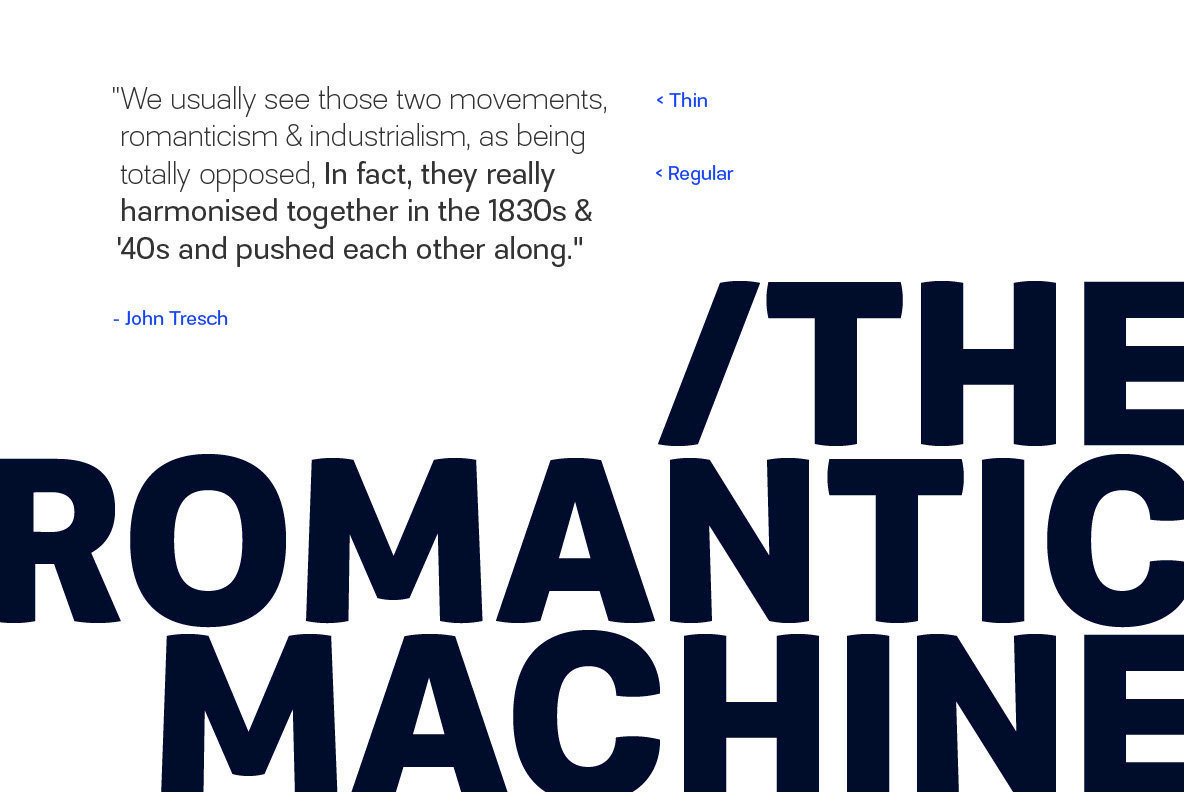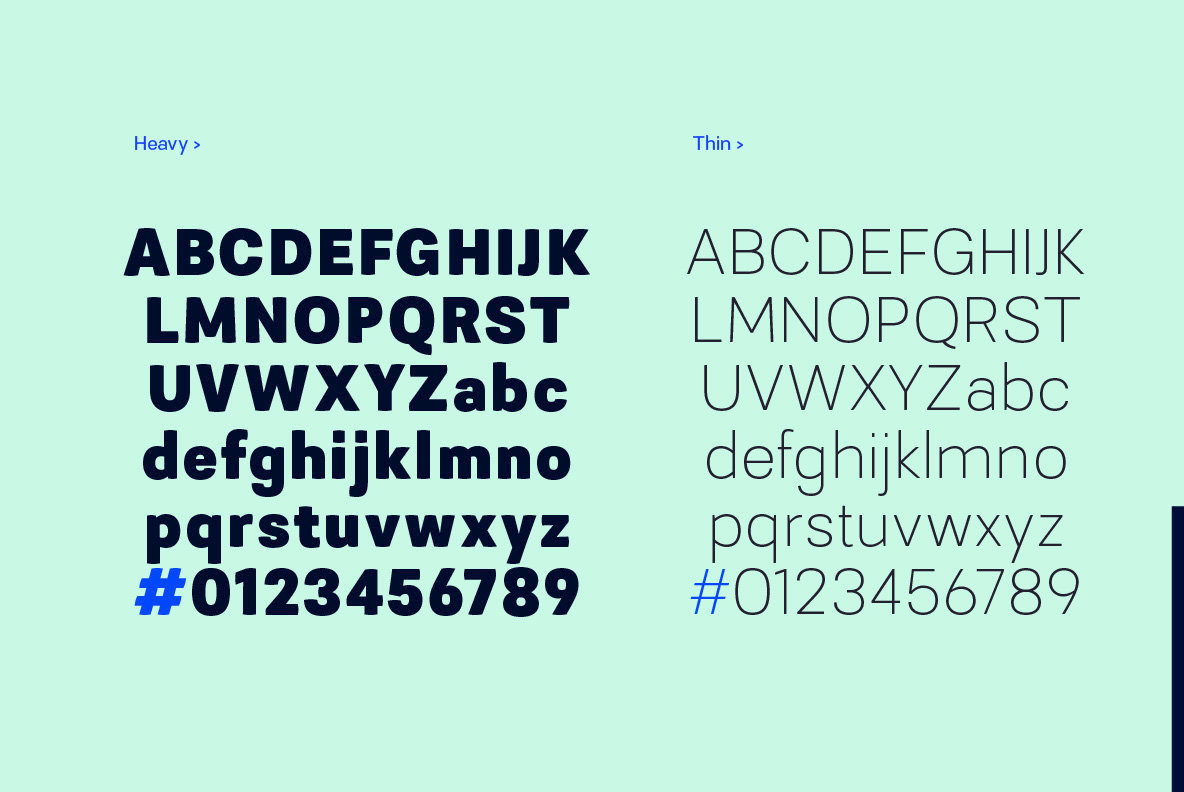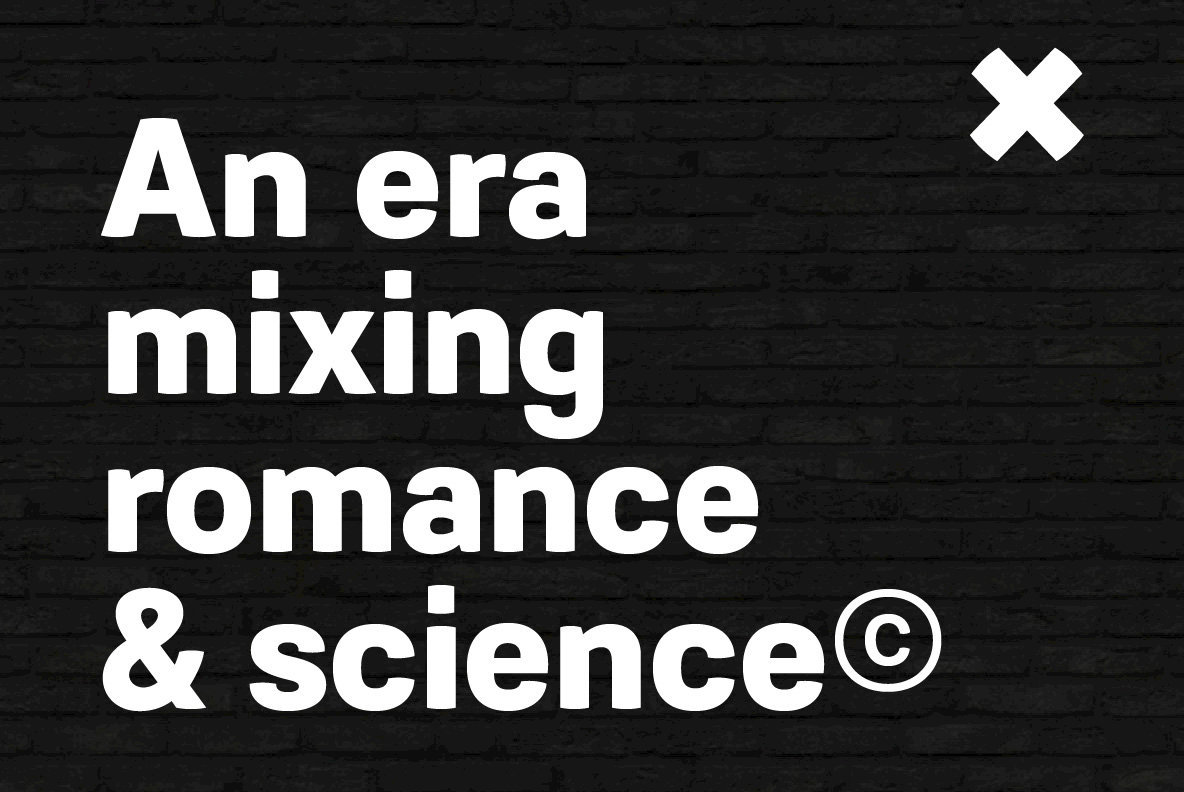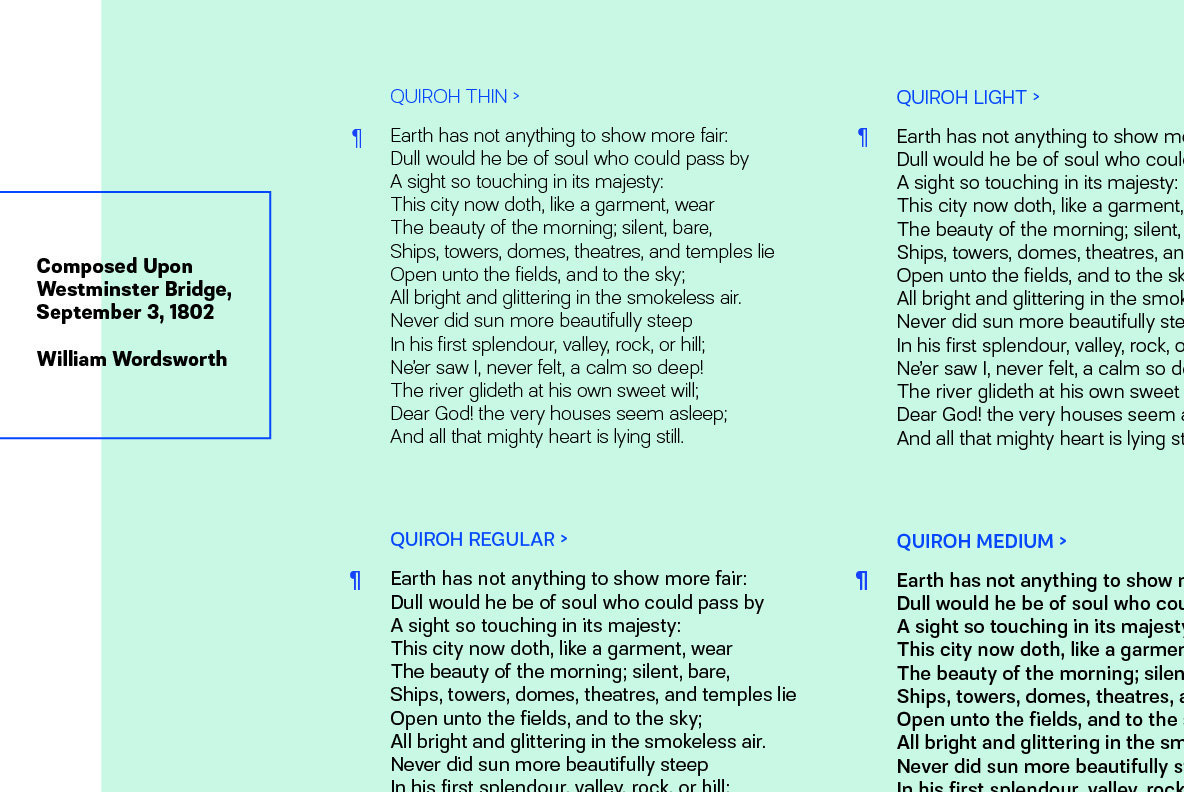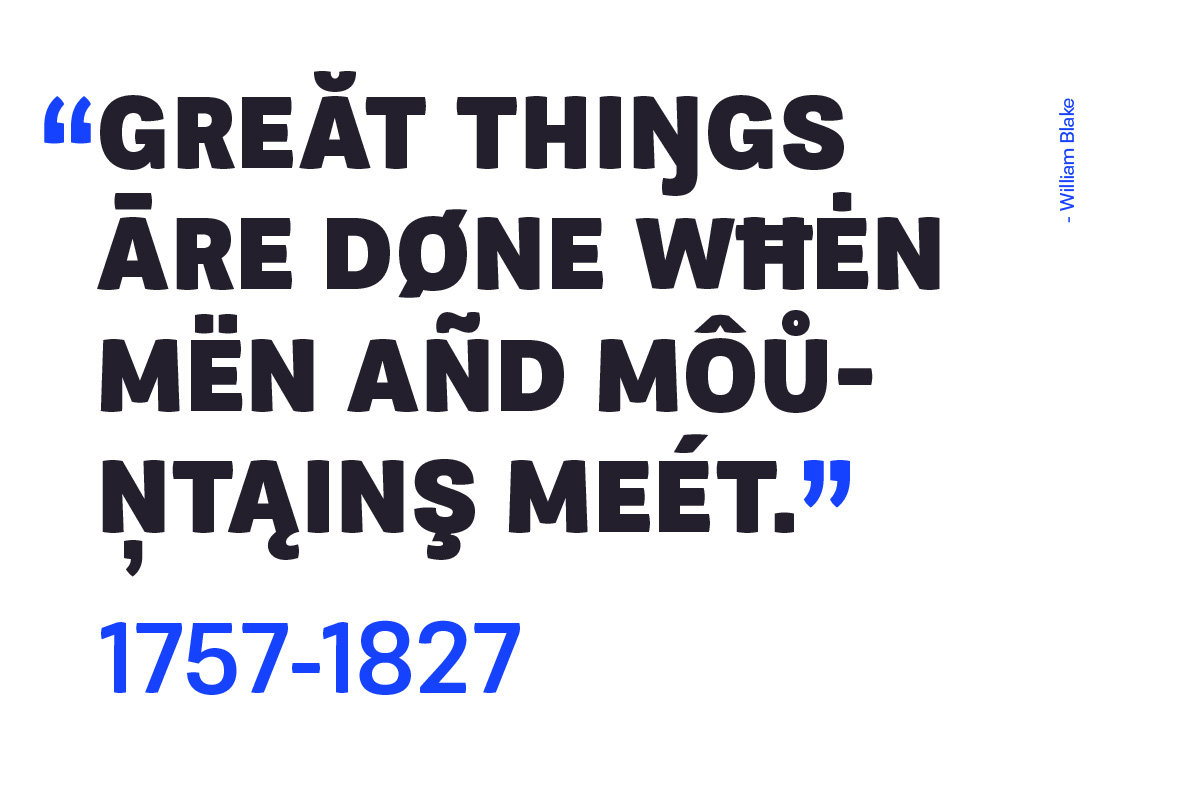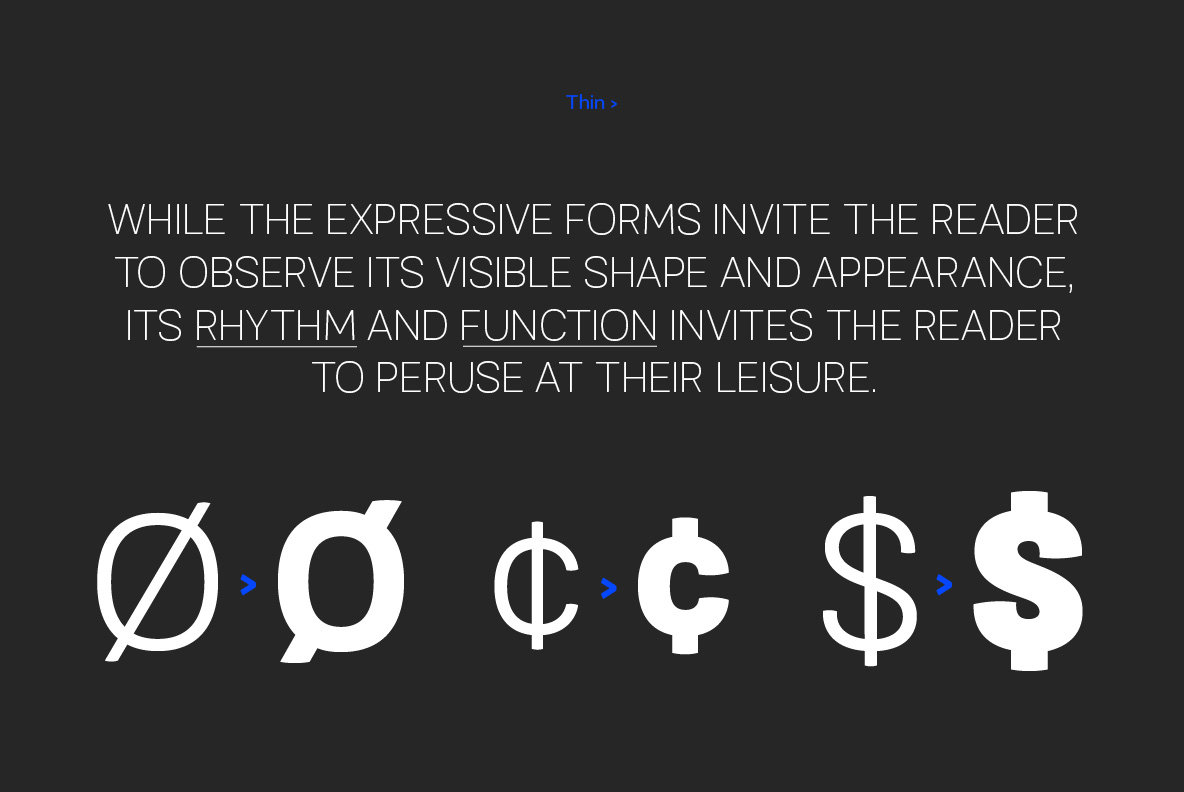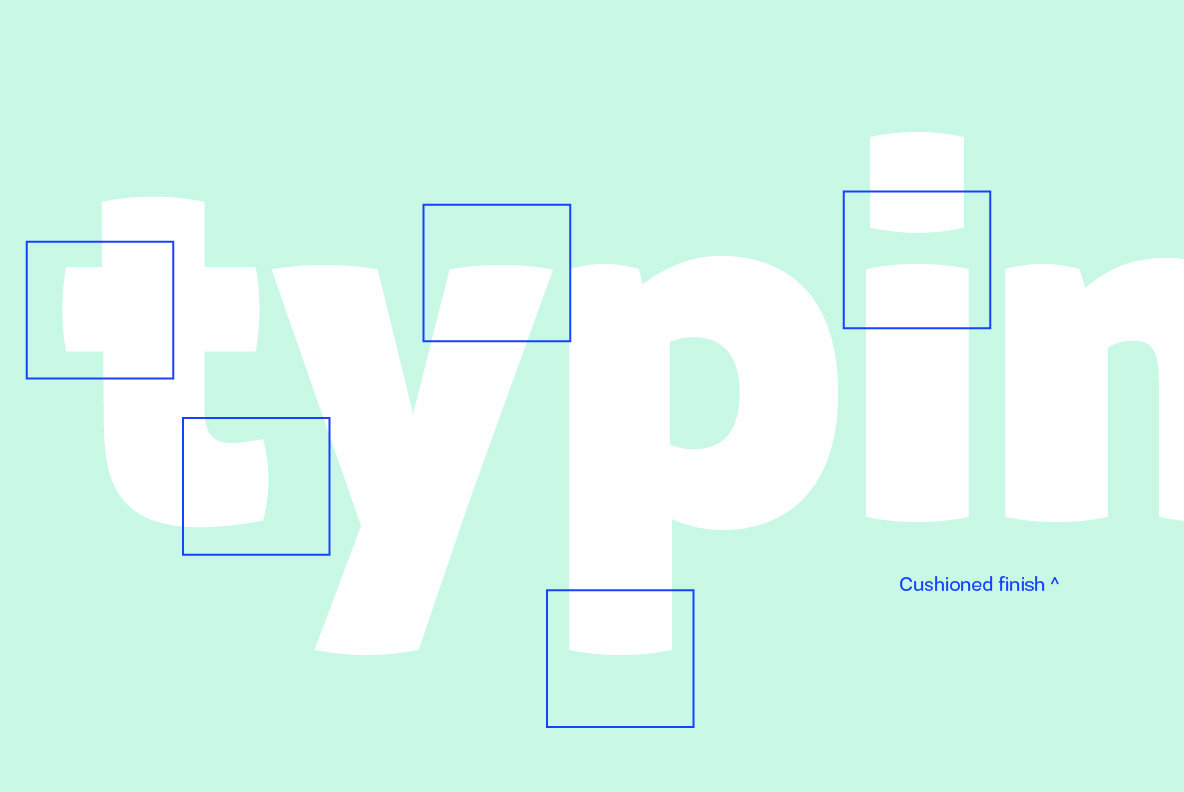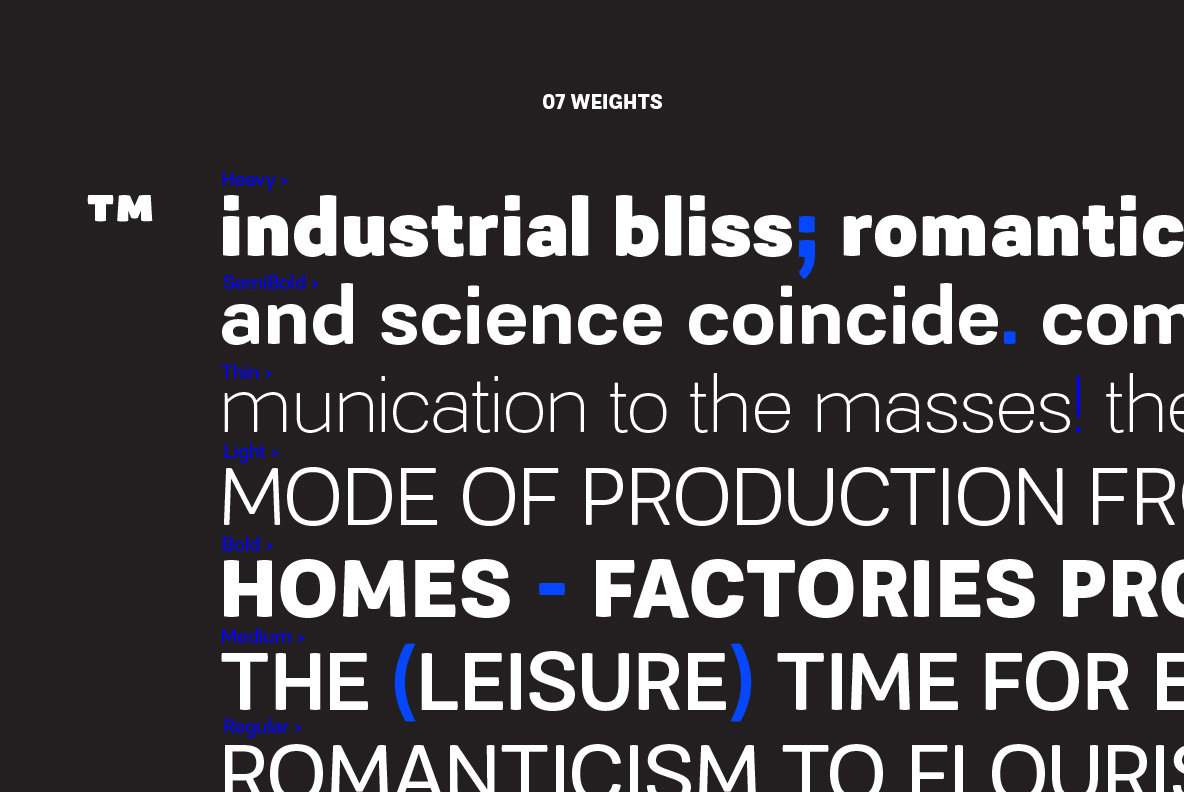
Quiroh Font
Quiroh is a functional typeface that expresses both artistic life and emotion. Taking its inspiration from the industrial revolution of the 19th Century where romance and science coincided. With a cushioned finish and designed according to traditional conventions, the sentiment is equally as important as the reason, resulting in a very pleasurable read. Quiroh includes both heavy display weights and lighter weights for small copy, it's a perfect tool for communicating to the masses. Tall ascenders and descenders give the typeface a distinctive look with an elegant feel, and while these expressive forms invite the reader to observe its visible shape and appearance, its rhythm and function invites the reader to peruse at their leisure.
Full details include 7 weights from thin to heavy with over 470 characters, manually edited kerning and OpenType features.